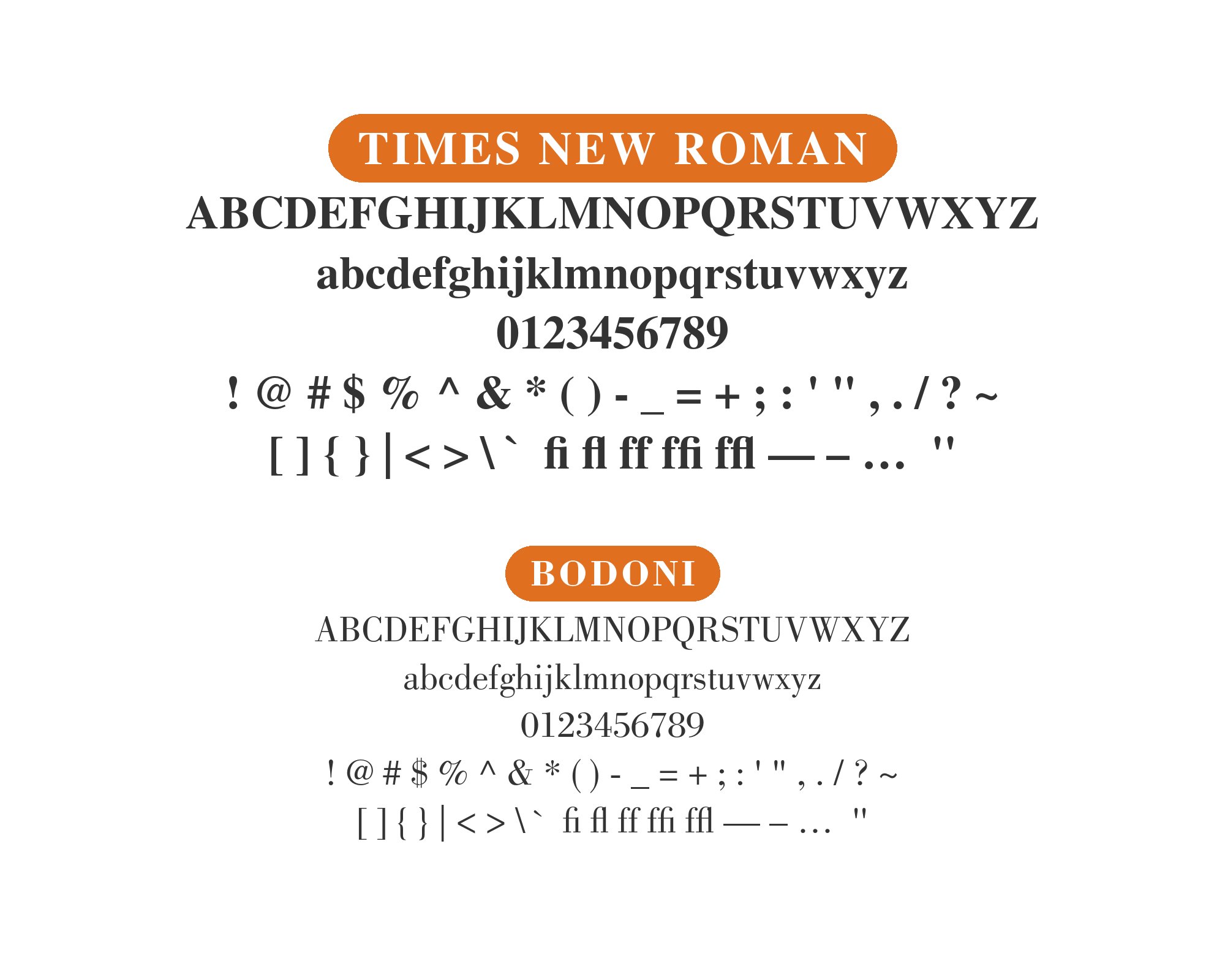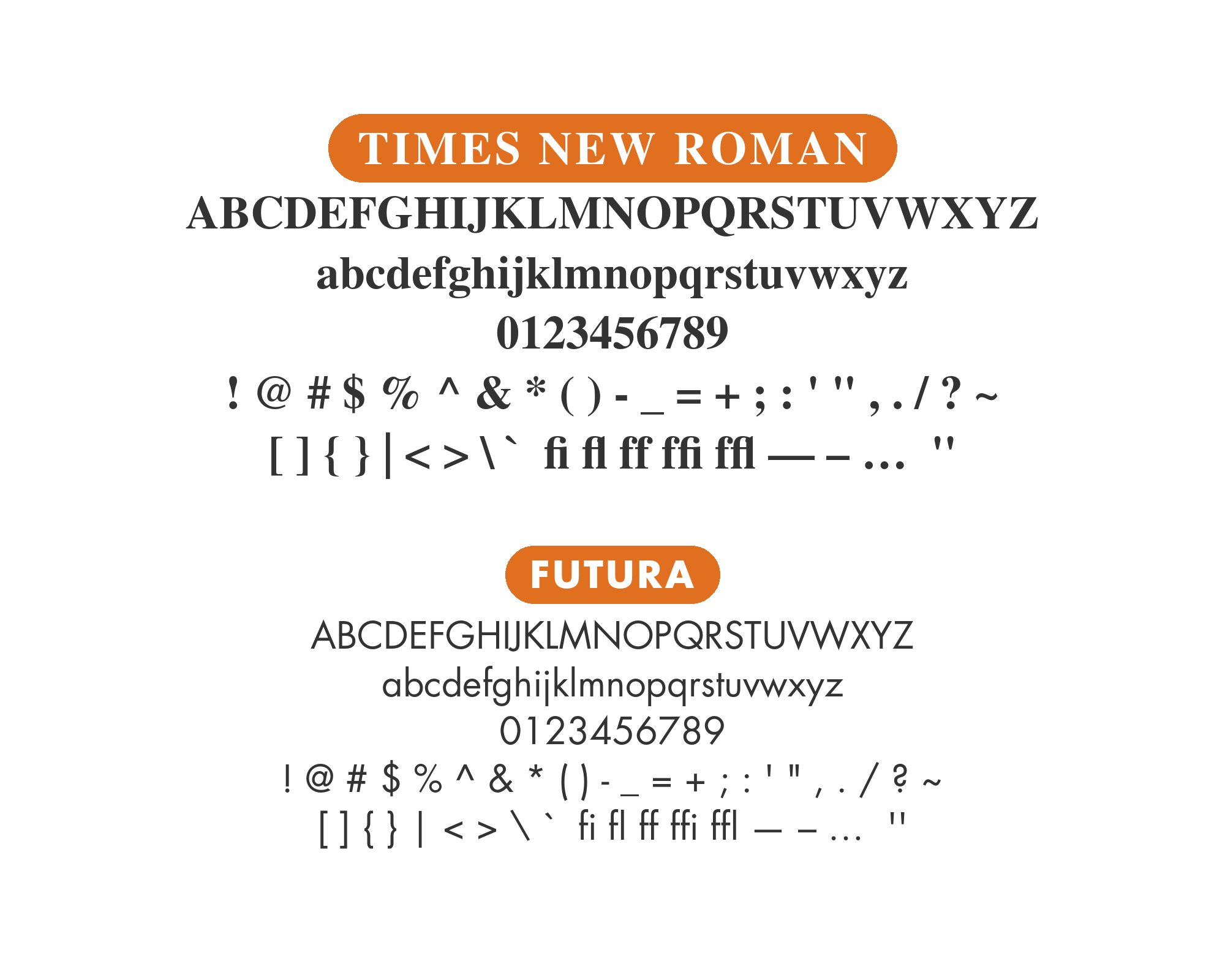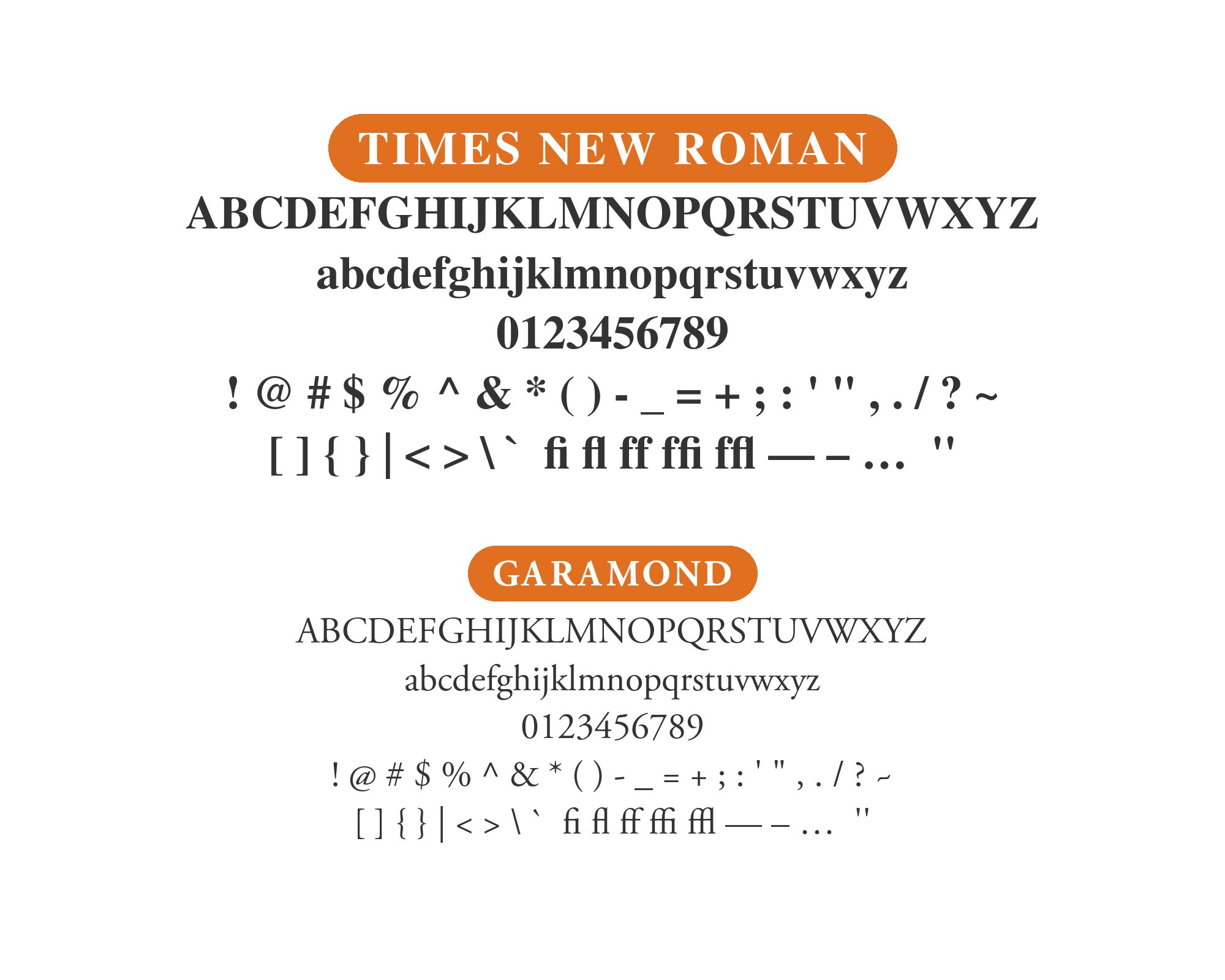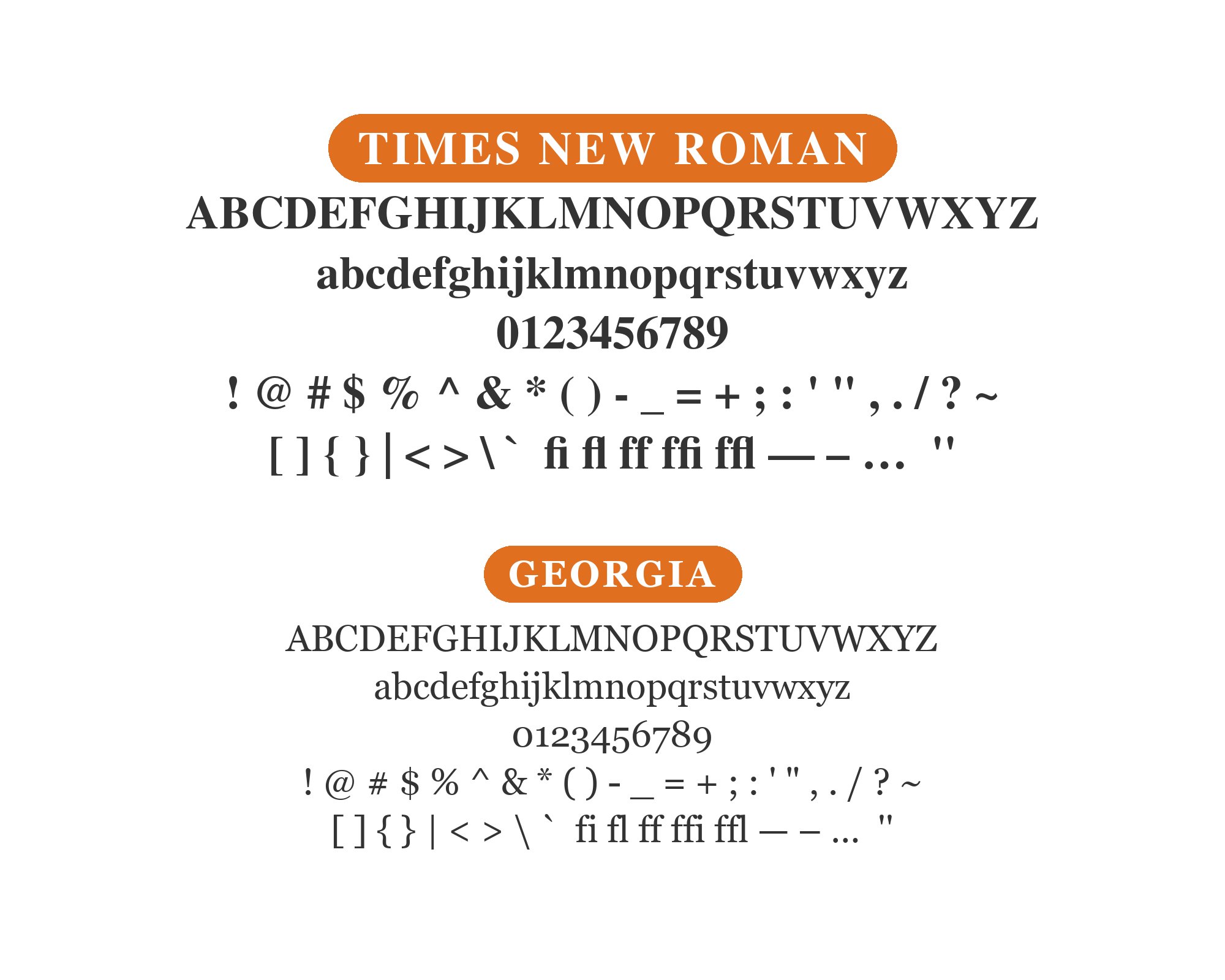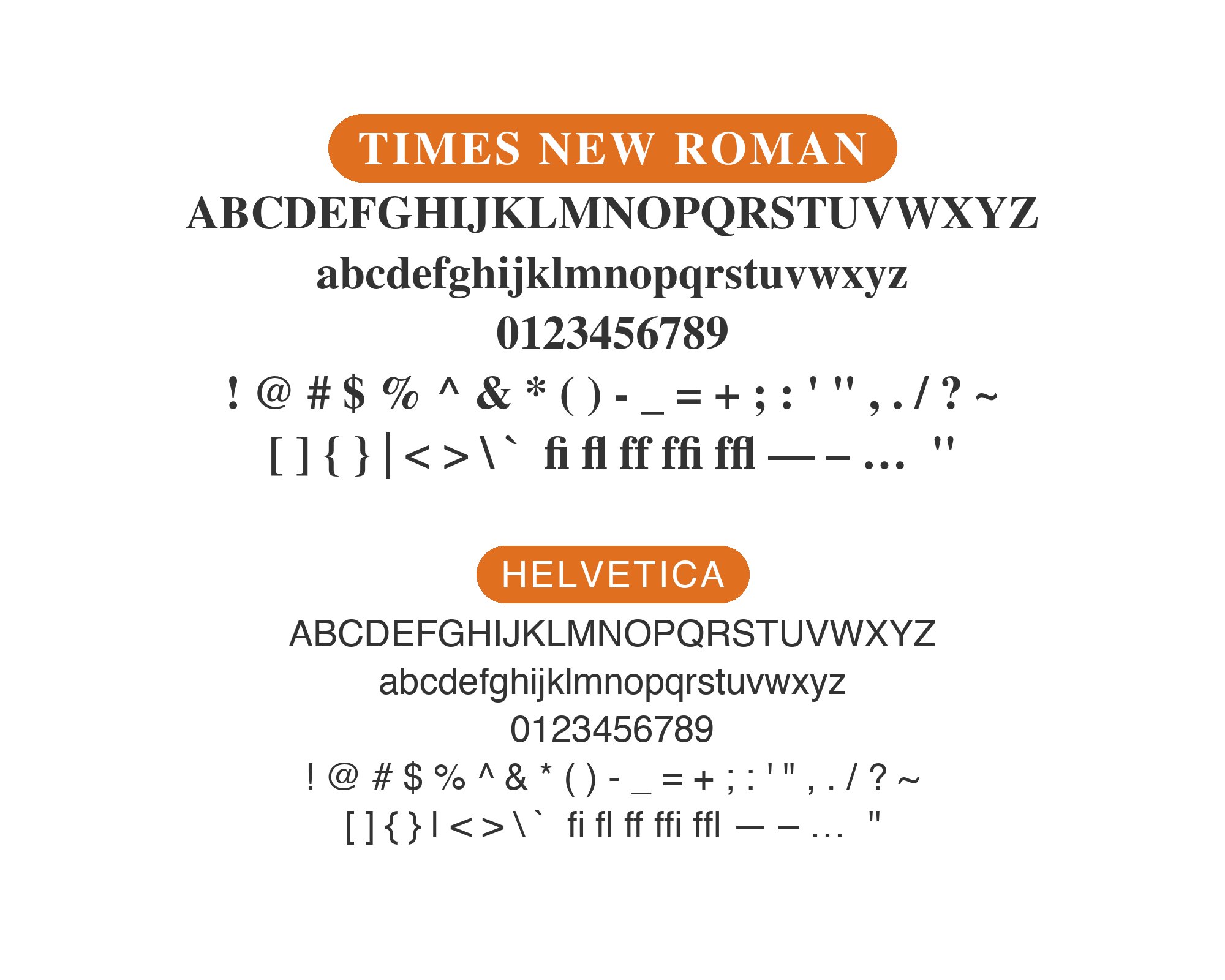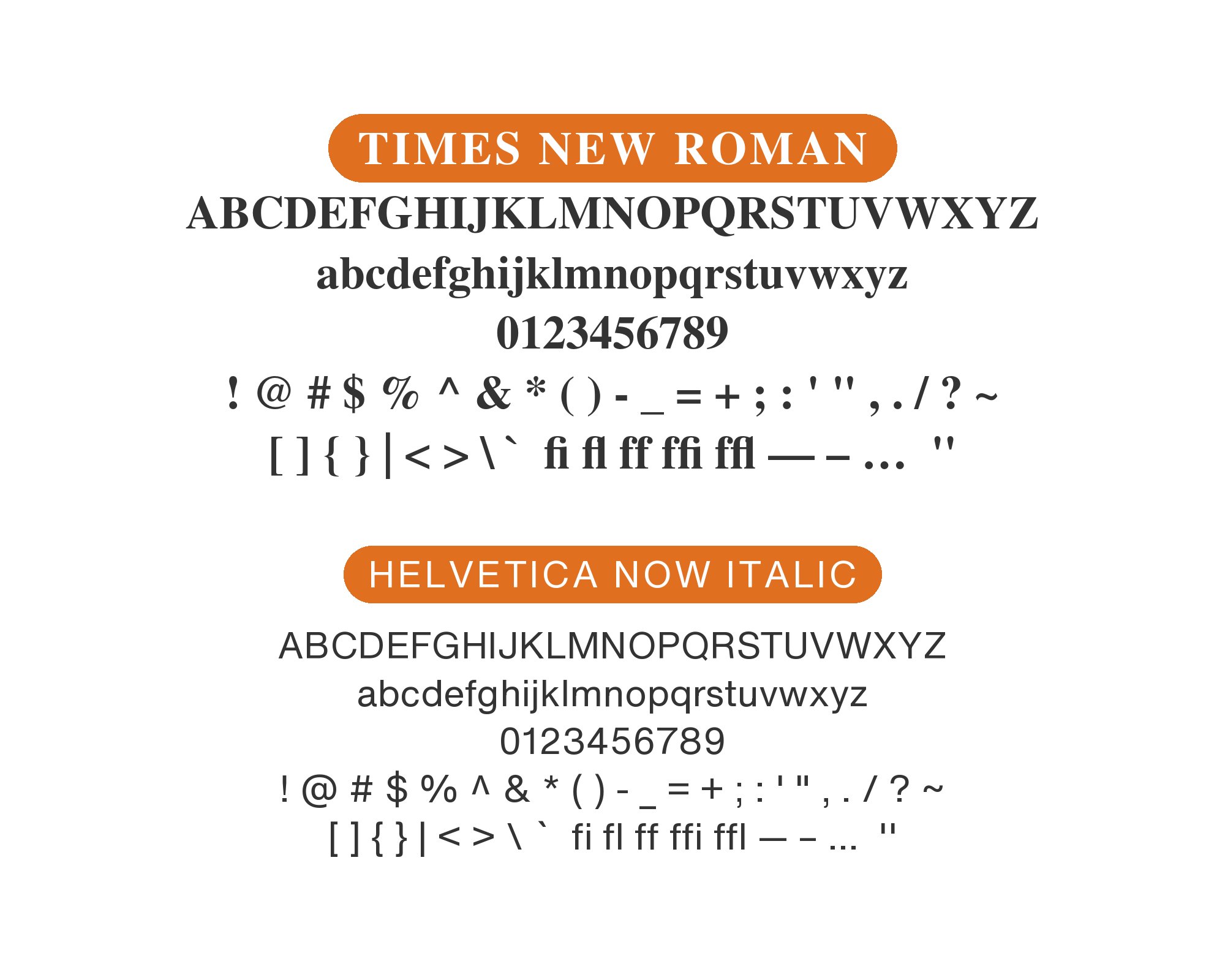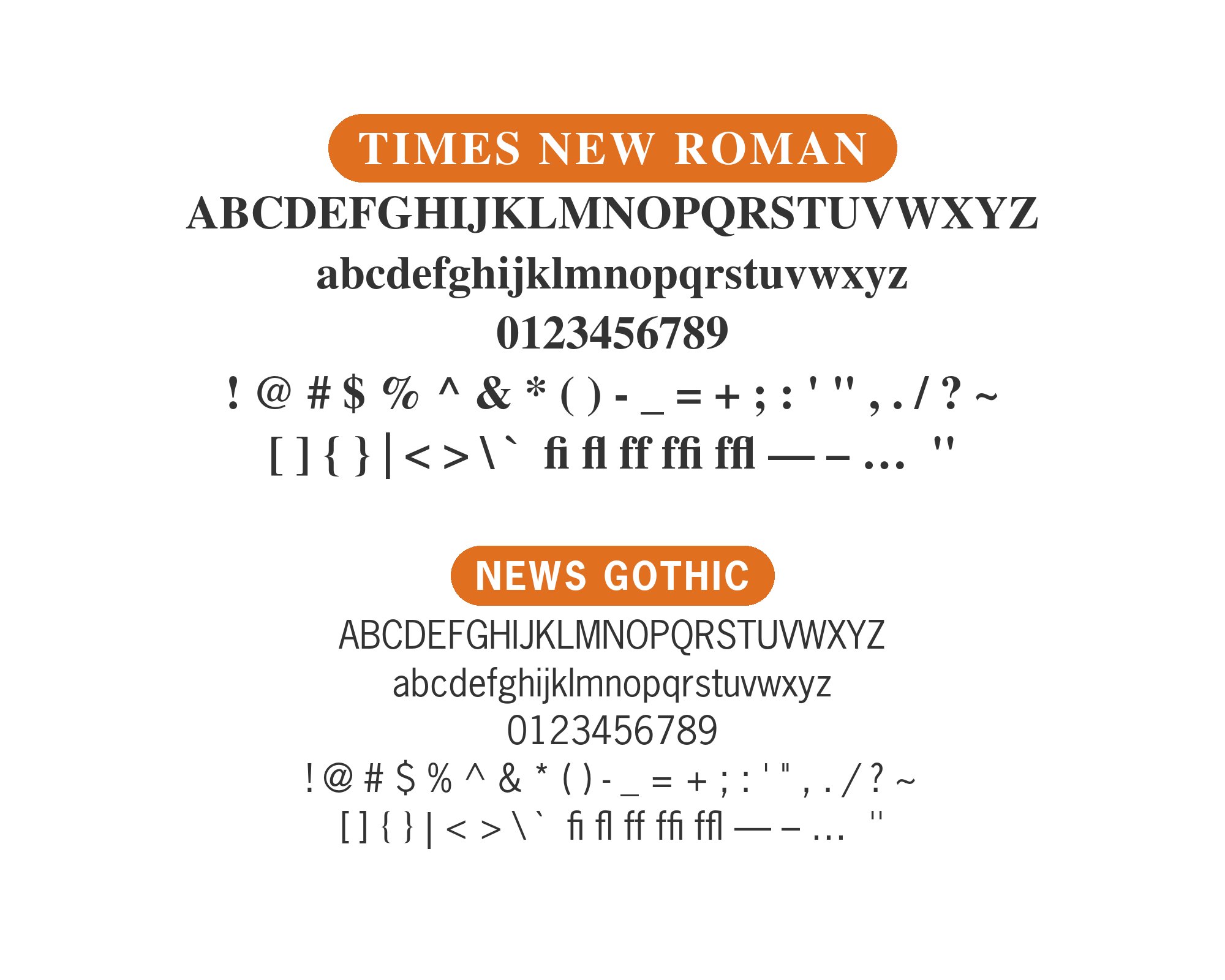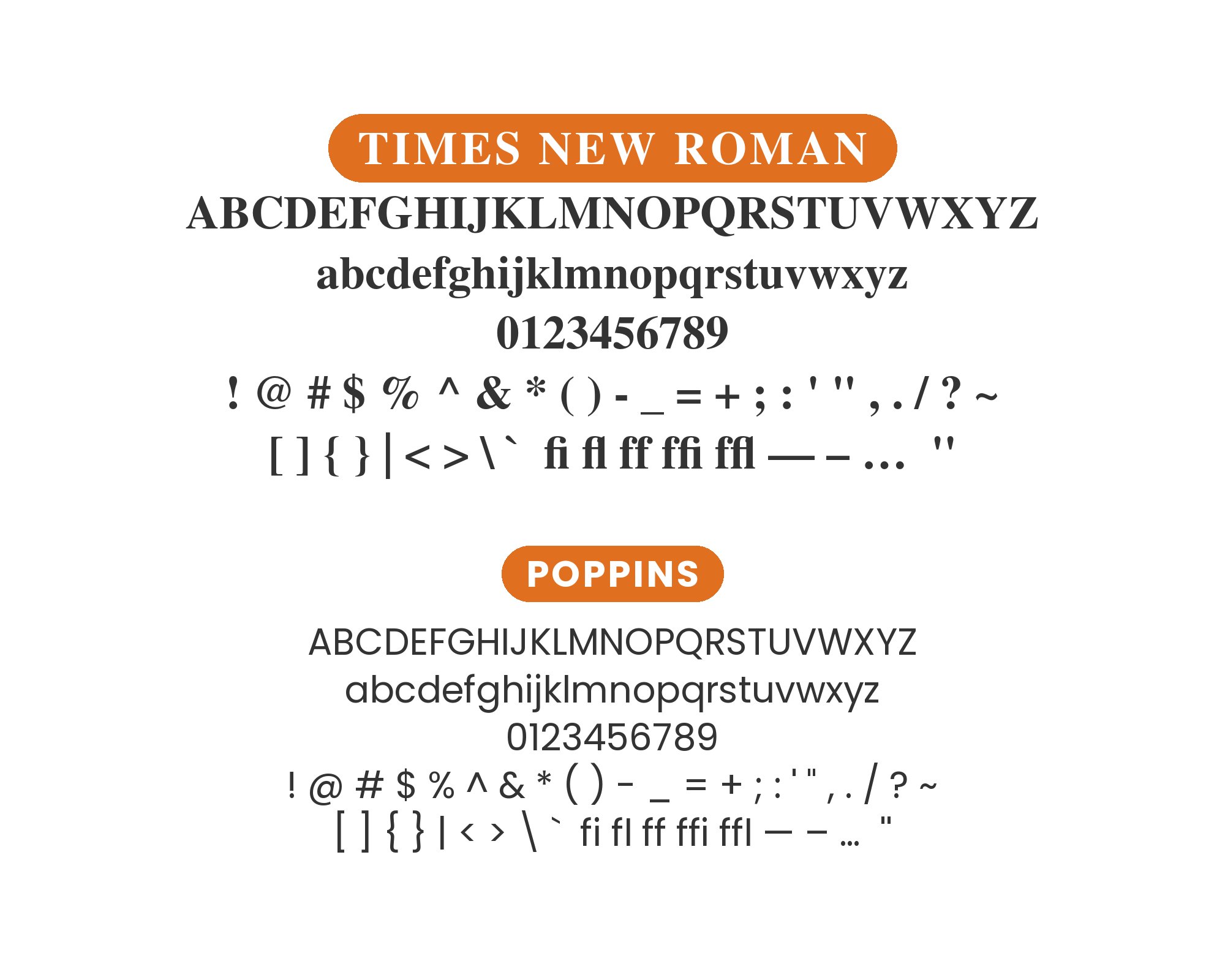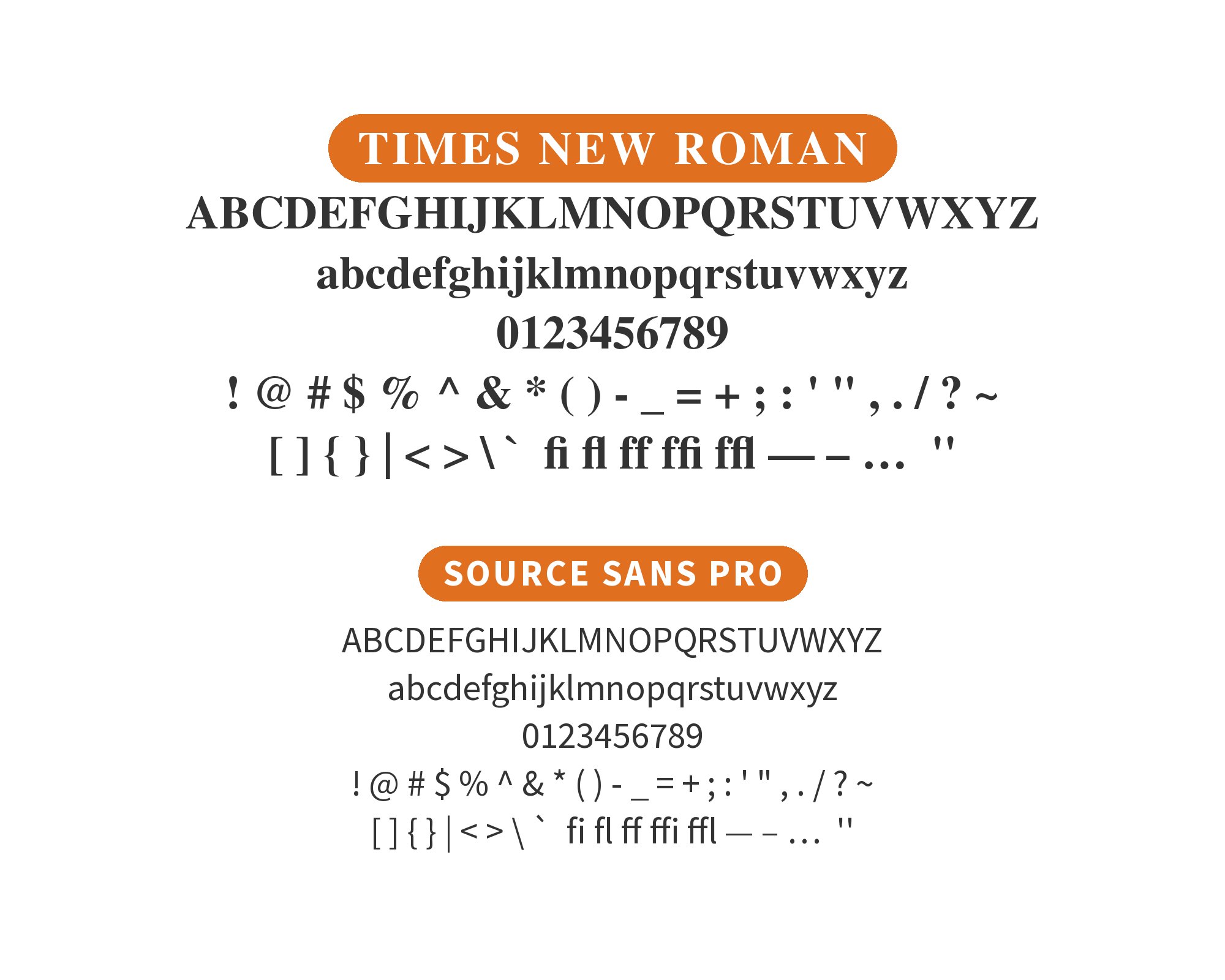
Times New Roman pairs great with Helvetica, Georgia and Poppins. All 11 pairings are shown below in real rendered specimens, with the reason each one works.
What fonts go with Times New Roman? It is one of the most popular typefaces of all time and, for exactly that reason, the hardest one to make look intentional: a transitional serif everyone has seen a thousand times, mostly by default rather than by choice.
Stanley Morison conceived the design for The Times of London, which commissioned it in 1931 and first printed with it on 3 October 1932. Morison had urged the paper to replace its spindly nineteenth-century text face with a more robust design, and Victor Lardent produced the drawings under his direction. The result is a transitional serif: moderate contrast between thick and thin strokes, a near-vertical stress, and sturdy, functional serifs built to survive narrow newspaper columns and cheap, fast-running presses. Every decision in the letterforms serves legibility at speed and at small size, which is exactly why it went on to become the default serif on nearly every computer built afterward.
That ubiquity created a real default-font stigma — a typeface people associate with not choosing a typeface at all. But the letterforms themselves are genuinely well drawn, and the reader searching for a Times New Roman pairing usually has to use it, not replace it. The two honest strategies are to pair it with something confident enough to make the choice look deliberate, or to lean into its plain, dependable familiarity with an equally plain partner. Here are 11 fonts that do one or the other well.
1. Helvetica
Helvetica is the most reached-for partner for Times New Roman, and the logic is simple: its neutral, mechanical letterforms give the serif’s calligraphic curves something plain to stand against. A Helvetica headline or a Helvetica navigation bar does not compete with Times New Roman’s texture, it just organizes the page around it. The contrast is serif against sans in its purest form, with nothing about either face trying to be interesting on its own terms. Available on Adobe Fonts and standard on macOS; on Windows, Arial is close enough in proportion to carry the same role without a license.
2. Georgia
Georgia exists partly to fix problems Times New Roman has always had on a screen: a bigger x-height, sturdier strokes, and more open counters, drawn by Matthew Carter specifically for legibility at small sizes and low resolution. Pairing the two lets Times New Roman keep the duty it still does well — print, formal documents, anything read at a comfortable size and distance — while Georgia quietly covers any place the same piece has to render in a browser or an app. It ships with both Windows and macOS, so the switch costs nothing and needs no new license.
3. Poppins
Poppins’s soft geometric curves and rounded terminals read as current and approachable against Times New Roman’s tight, newsprint-efficient proportions — a contrast in temperature more than in structure. A Poppins headline feels contemporary sitting above body text that still carries all the document-like credibility Times New Roman brings with it. The pairing suits reports, proposals and web content that want to look modern up top without abandoning the seriousness a Times New Roman body communicates underneath. It is free on Google Fonts, which makes it one of the easiest and lowest-risk updates on this list.
See Year Two4. Garamond
Garamond is Times New Roman’s stylistic ancestor by four centuries — an old-style serif with the calligraphic warmth that later transitional designs, Times New Roman included, deliberately smoothed away in the name of efficiency. Setting the two together, Garamond for a foreword, a pull quote or a title page and Times New Roman for the running text, adds historical depth without a jarring change in serif logic; both faces are calligraphic at heart, just at different points along the same design lineage. EB Garamond is the free option if a paid cut is not already available.
5. Futura
Futura’s circles and triangles sit about as far from Times New Roman’s transitional calligraphy as a sans-serif can get, which turns the pairing into a confident, legible contrast rather than a mismatch. Headlines set in Futura read as modern and geometric; body text in Times New Roman underneath stays exactly as legible and familiar as it has always been. The combination has real design pedigree: Massimo Vignelli set both on the poster for his 1991 SVA exhibition, A Few Basic Typefaces, and the gap between the two faces reads as a deliberate choice rather than an accident. Century Gothic, which borrows liberally from Futura’s letterforms, is a close substitute where Futura itself is not licensed.
Book a Session6. Source Sans Pro
Source Sans Pro is plain almost to a fault, and that is exactly its value here: it does not try to modernize Times New Roman or apologize for it, which lets the serif’s default, everywhere-you’ve-seen-it familiarity land as honesty instead of laziness. Elementor’s pairing guide sets Source Sans Pro as the header beside Times New Roman. This is the pairing for a product or a document that wants to feel dependable rather than stylish — a form, a policy page, an internal tool where trust matters more than personality. It is free, open-source and extremely well hinted at small sizes, so it holds up in dense interface text as well as it does in headings.
7. Trade Gothic
Trade Gothic is a tight, no-nonsense grotesque that Jackson Burke drew for Linotype in 1948, and it is Typewolf’s suggested partner for Times New Roman: it shares the same workmanlike register rather than a personality that competes with it. Set as a caption or section label next to Times New Roman body copy, it reads as infrastructure — functional, unobtrusive, built for the same kind of dense, deadline-driven page. It is a licensed Linotype face available through Adobe Fonts, worth the license specifically for projects already leaning into a newspaper or editorial register where the historical connection actually matters.
Either way, test the combination at the size the document will actually use. Bodoni’s hairlines and Helvetica Now Italic’s slant both read very differently in a headline specimen than they do in a printed report or a phone screen. Set real text before deciding, and let the reading experience, not the specimen, make the final call.